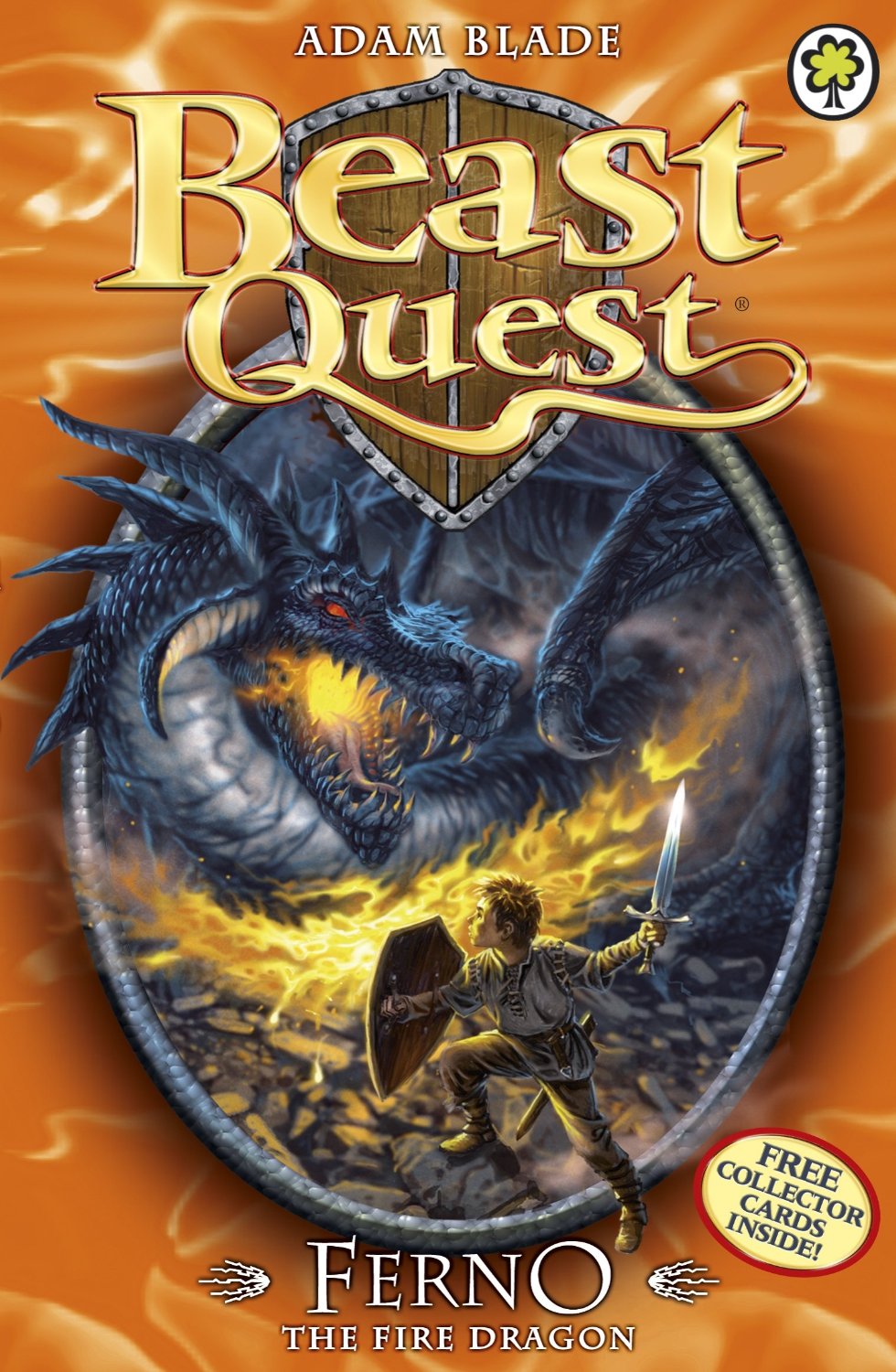
Beast Quest Font
AdventureBeast Quest is a series of children's fantasy novels published by Orchard Books in the UK and by Scholastic Corporation in the US. The books follow the adventures of Tom, a young hero who must defeat various beasts and monsters in order to save the kingdom of Avantia from the evil wizard Malvel.
The above cover image is of Ferno the Fire Dragon, the first novel in the series. Obelisk Medium is used for the series title lettering designed by Phill Grimshaw, and Charlemagne Regular by Carol Twombly is used for the novel name and the author name graceful serif setting.